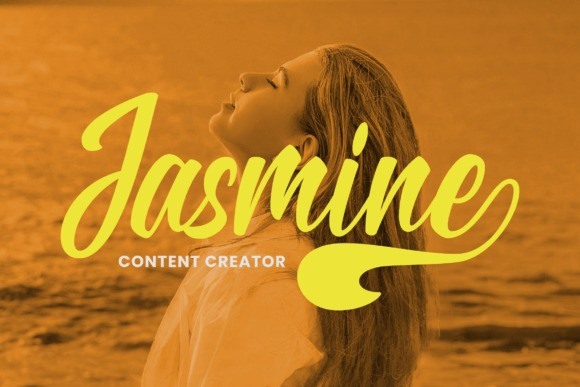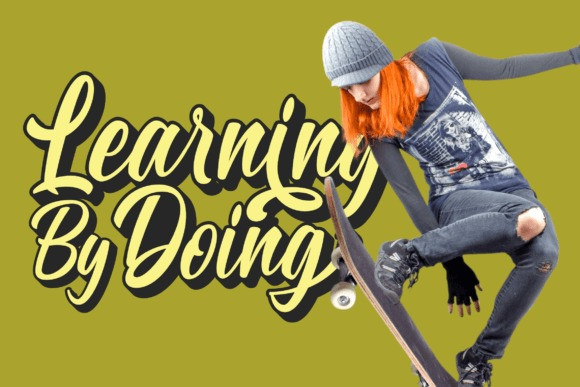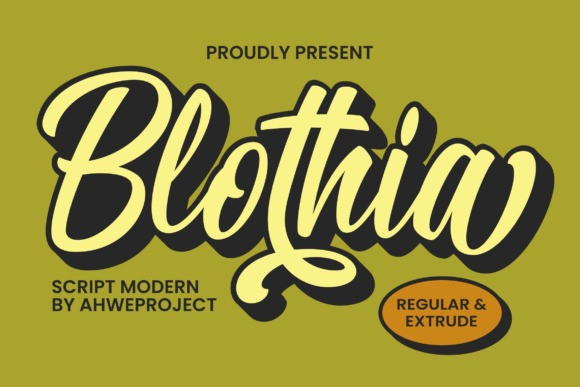
Blothia Script Font
Blothia Script Font is a brush script font with a dynamic and energetic style. It can be used for various purposes such as titles, signatures, logotypes, T-shirt designs, letterheads, signage, labels, newsletters, posters, badges, and every other design which needs a unique, striking font.